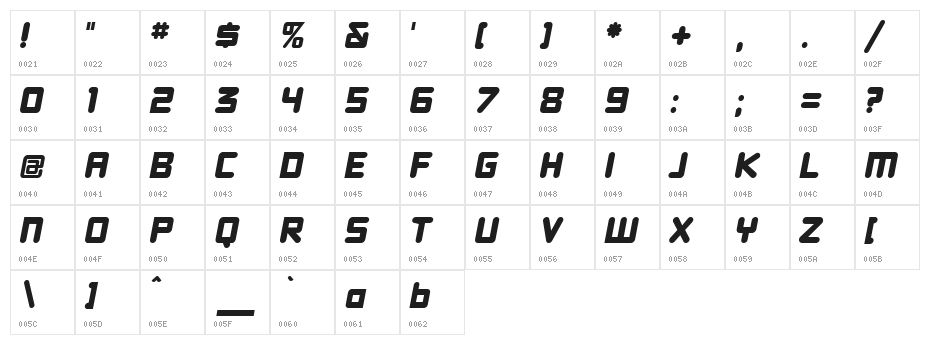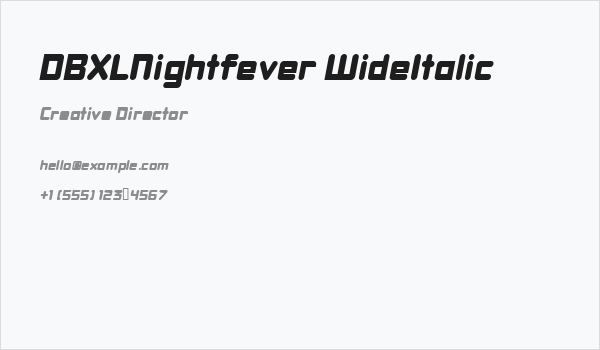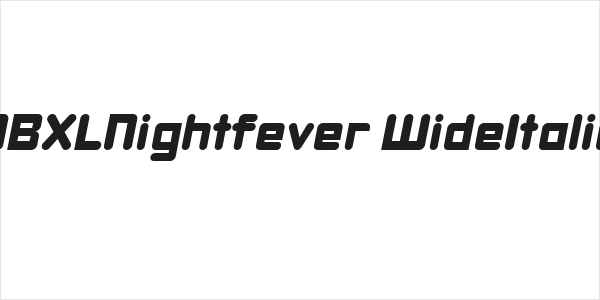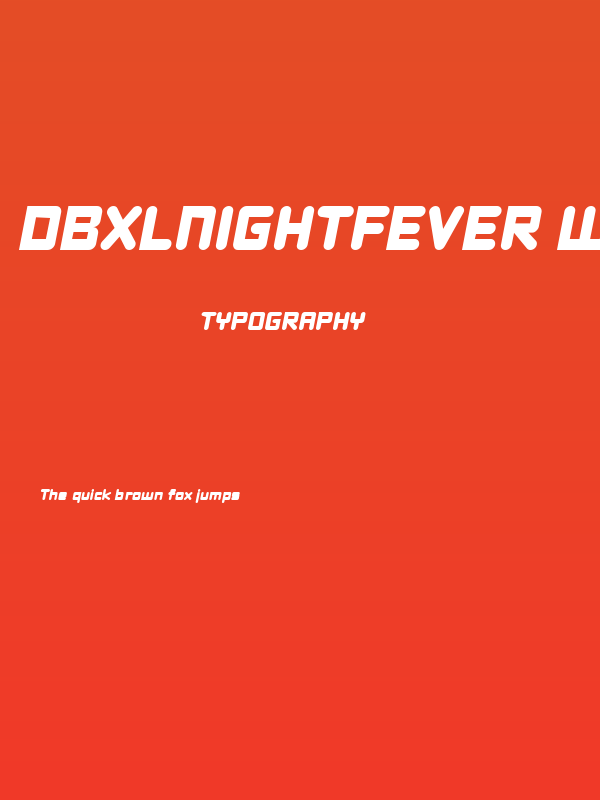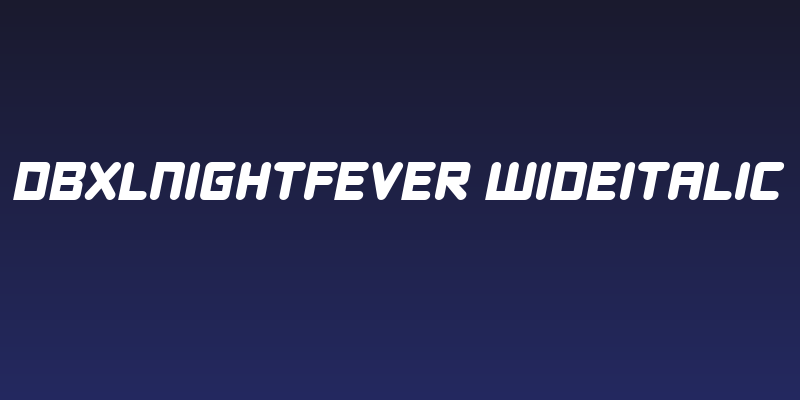
DBXLNightfever WideItalic Font
DBXLNightfever WideItalic Description
This font features a bold, wide, and italicized style that exudes a modern and dynamic feel. The characters are designed with rounded edges and a consistent stroke width, giving it a smooth and sleek appearance. The uppercase and lowercase letters maintain a uniform height, while the numbers and special characters are crafted to match the overall aesthetic. The font's wide stance and italic slant add a sense of motion and energy, making it suitable for projects that require a contemporary and eye-catching look. Its boldness ensures readability, while the rounded corners soften the overall impact, creating a balance between assertiveness and approachability.
| Proposed Projects | Ideal for branding, advertising, posters, and digital media that require a bold and modern touch. |